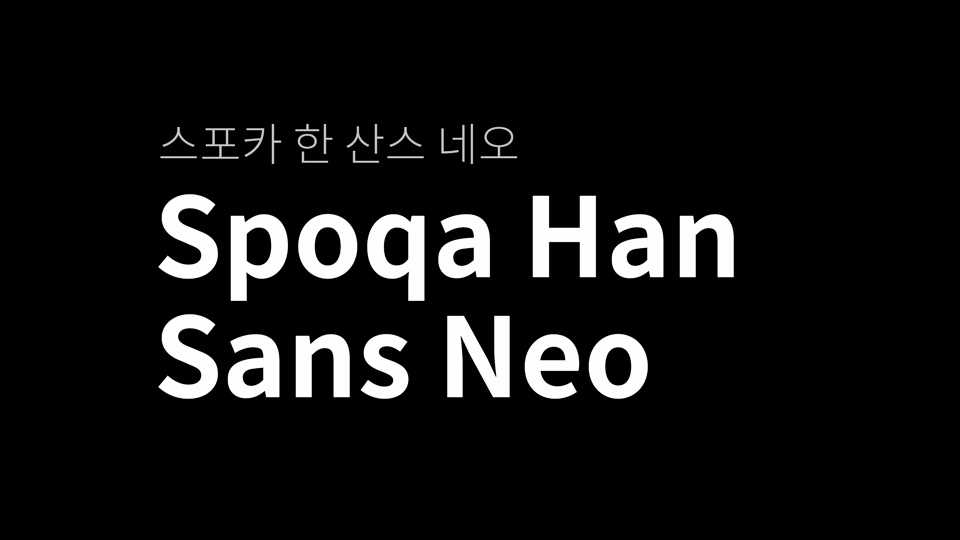
Download Spoka Han Sans Neo typeface, a sans serif font family with five weights that features a great harmony of Korean, English, Japanese and beautifully expresses language in a digital environment.